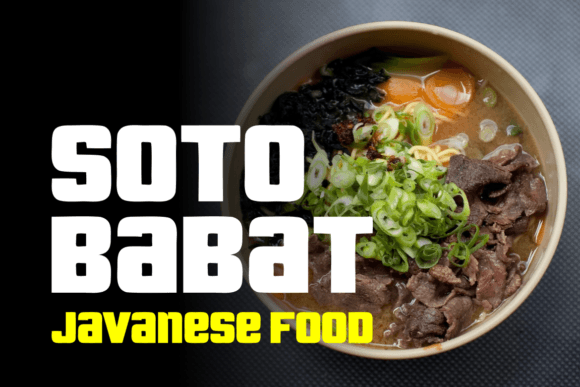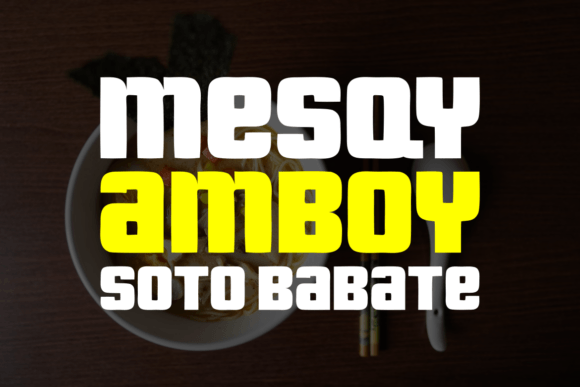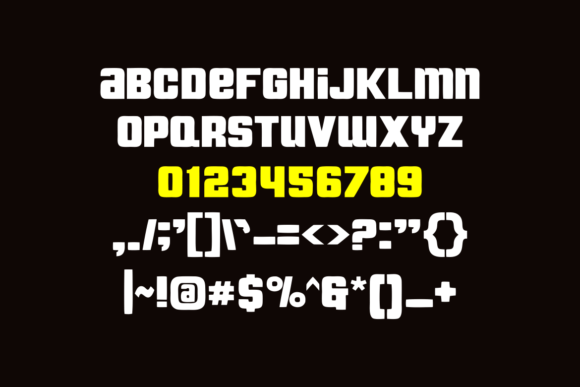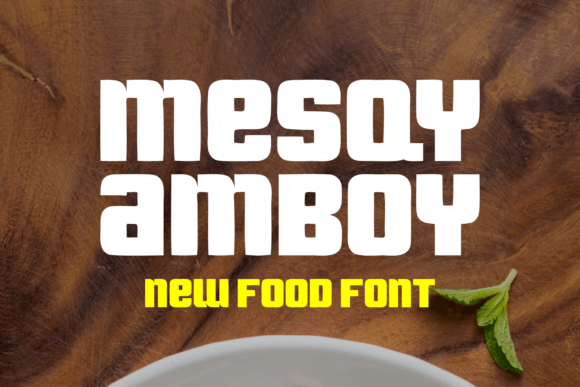
Introduction to Mesqy Amboy Font
Mesqy Amboy is a very versatile font that can be used for posters, invitations, greetings, and more.
However, it shines brightest when used for food posters, menu lists, and product promotions related to the food and beverage industry .
Mesqy Amboy Font offers exceptional quality and versatility, making it a valuable addition to your design toolkit. Whether you’re creating for personal projects or commercial use, Mesqy Amboy Font delivers professional results.